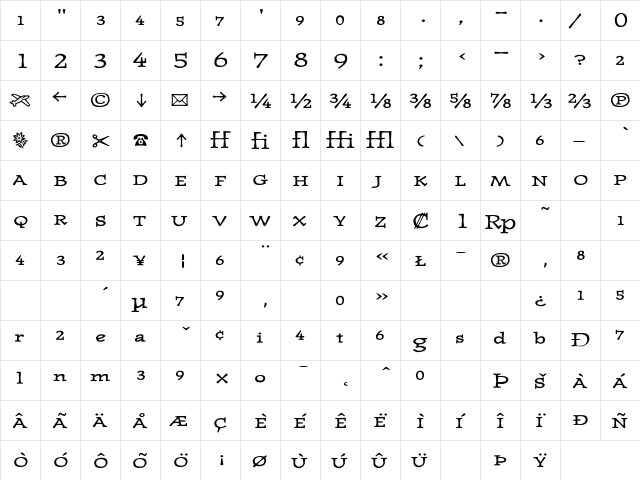
JournalFractions-Ultra Ultra
Design Context for JournalFractions-Ultra Typeface
JournalFractions-Ultra is a composed and adaptable typeface that performs quietly and consistently across a wide range of design contexts.